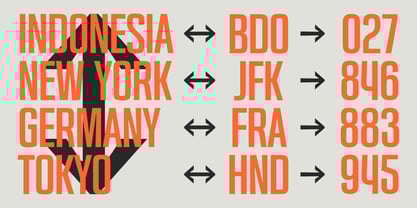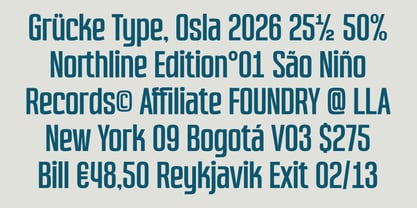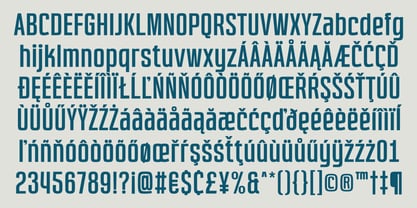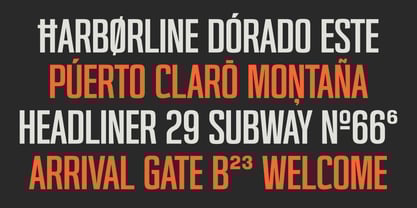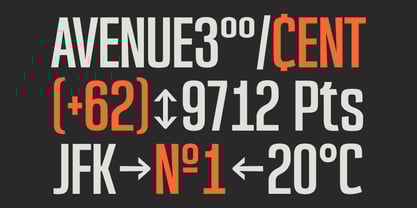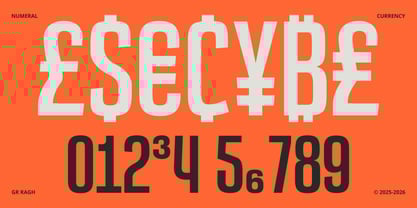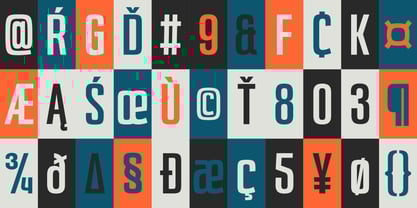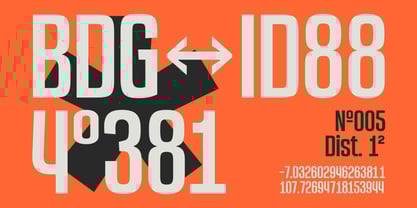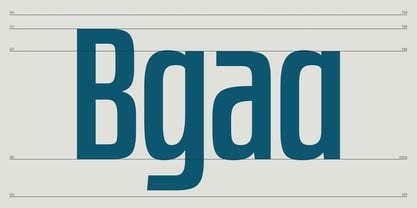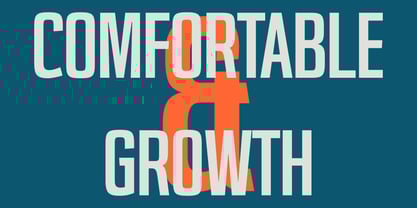
GR Ragh
by Garisman Studio
The GR Ragh Font Family was designed by Risman Ginarwan and published by Garisman Studio. GR Ragh contains 1 styles.
GR Ragh is a modern condensed sans serif display font designed for impactful titles and efficient layouts. Featuring a single regular style, it showcases tall, narrow letterforms that maintain sharpness and readability even in constrained spaces, making it an excellent choice for headlines, titles, logos, posters, and signage. Its straightforward construction and balanced spacing contribute to a clean, professional aesthetic, suitable for editorial design, branding, and digital graphics. The font's OpenType features include stylistic alternates, fractions, denominators, math symbols, and arrows, providing designers with enhanced control over wayfinding systems, numeric information, and typographic nuances.